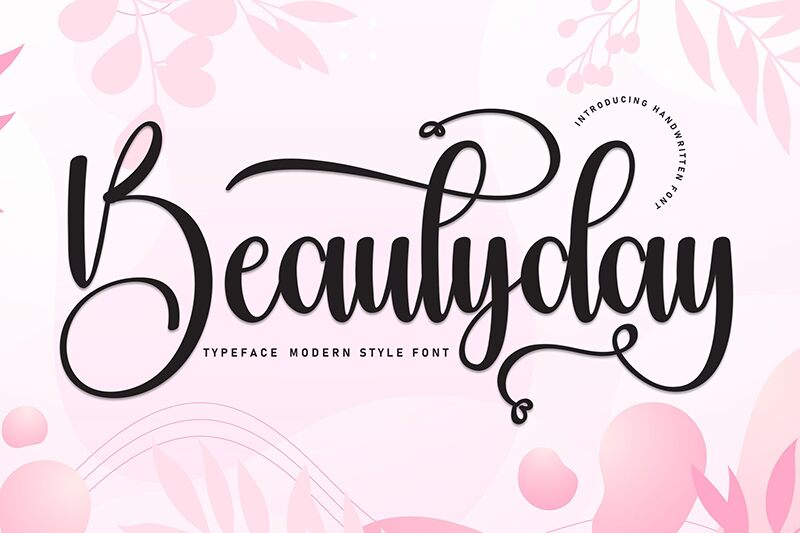
Beautyday
Beautyday font by Scratchones is a free calligraphy font that stands out with elegant curves and decorative flair. A contemporary appeal is visible throughout, highlighted greatly in its flourishes. Beautyday has a sophisticated style; it really does look like handwriting by an artistic hand.
Use this fabulous resource in quotes, greeting cards, logos, book covers, headings, and signatures. Also useful for branding/visual identities and poster design projects. Suitable for web designs such as blogs and homepages too.